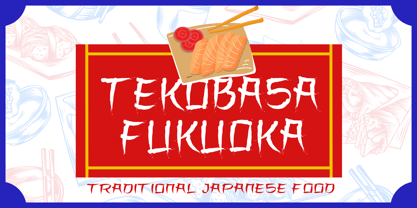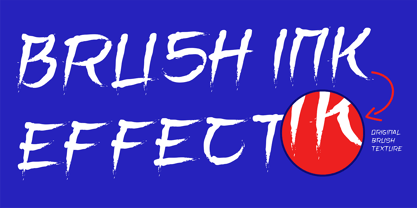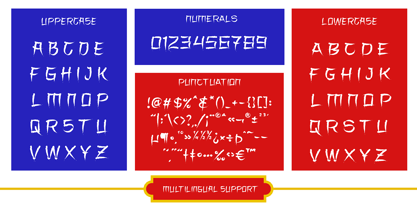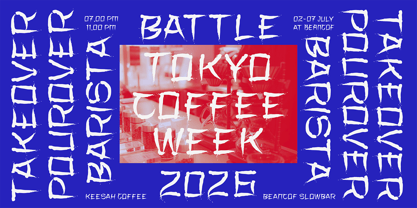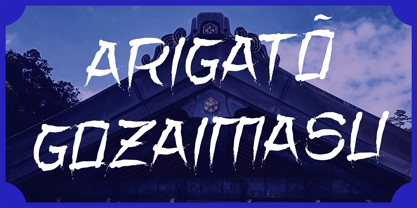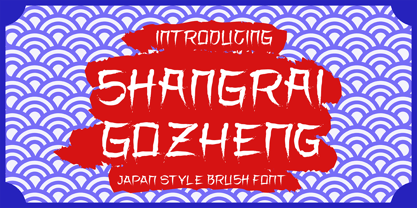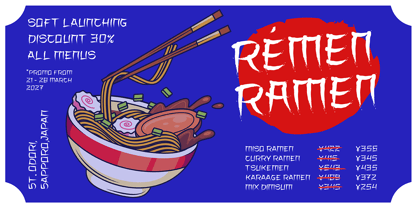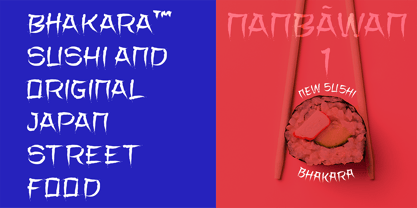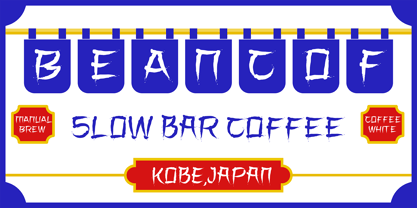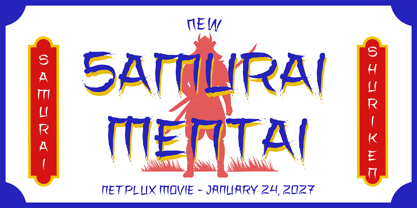
Shangrai Gozheng
by Viaction Type.Co
The Shangrai Gozheng Font Family was designed by Lukman Hidayat and published by Viaction Type.Co. Shangrai Gozheng contains 1 styles. More about this family
Shangrai Gozheng – Japan Style Brush Font is a striking typeface inspired by authentic Japanese calligraphy and traditional brush-stroke aesthetics. Designed to bring the raw energy of hand-painted lettering into modern digital work, this font offers expressive strokes, organic textures, and a bold cultural presence. Perfect for branding, packaging, posters, game titles, restaurant menus, apparel, and cinematic designs, Shangrai Gozheng combines artistic authenticity with professional usability. This font family includes 2 styles: Regular and Oblique, giving designers versatile options for dynamic compositions. It also supports multilingual characters, making it suitable for international projects. With its handcrafted look and high-definition brush details, Shangrai Gozheng stands out as a powerful choice for Japanese-themed designs, Asian aesthetics, samurai concepts, manga titles, and dramatic visual storytelling.